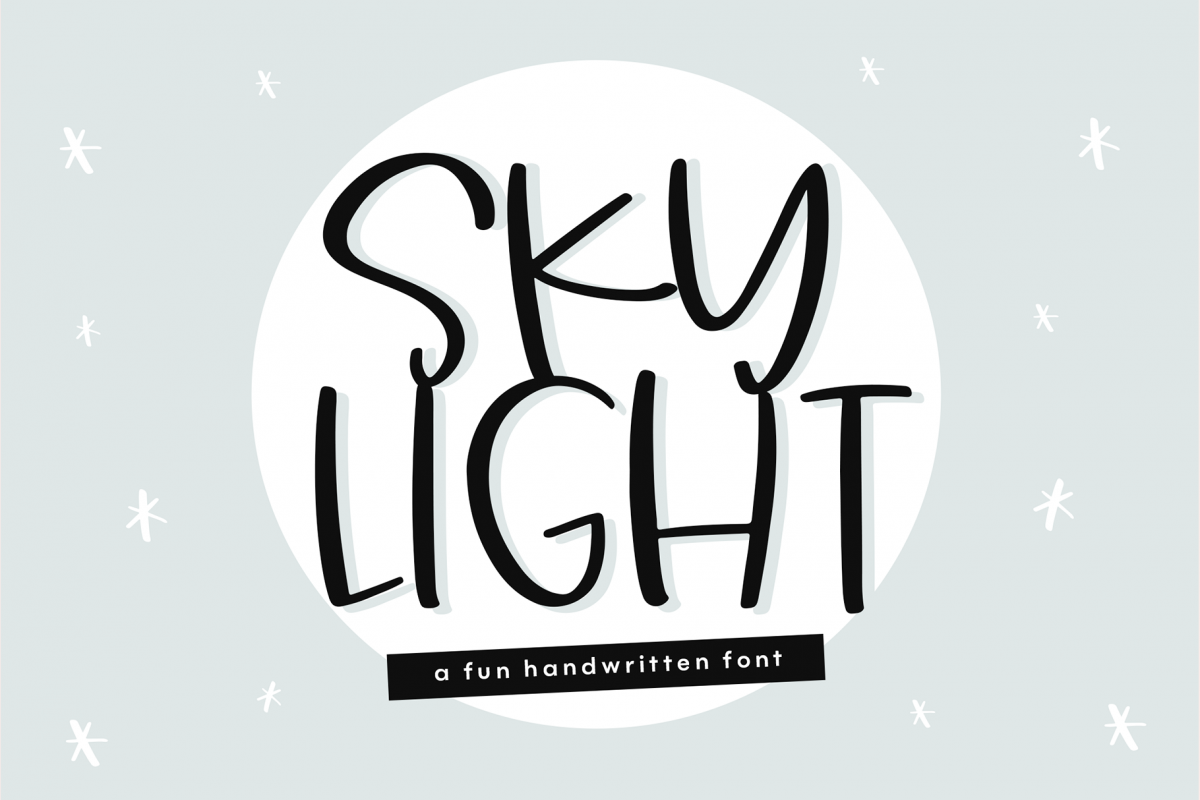
Sky Light - A Quirky Handwritten Font
Skylight
Sky Light is a cute & quirky handwritten font!
This font is perfect for quotes, shirt designs, websites, branding, children's designs, svg designs, blogs, logos, invitations and more!